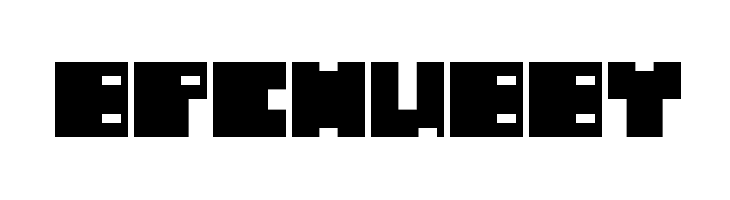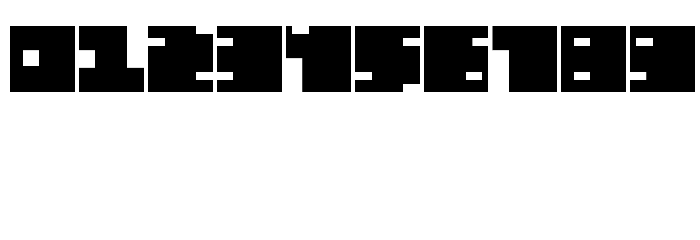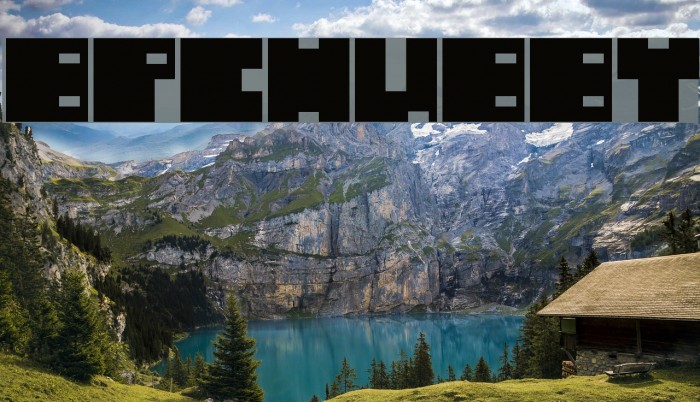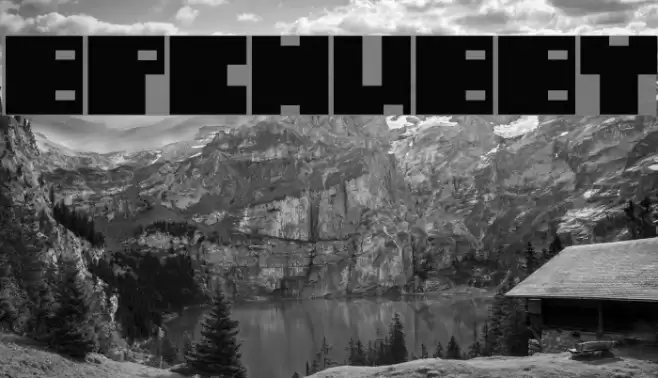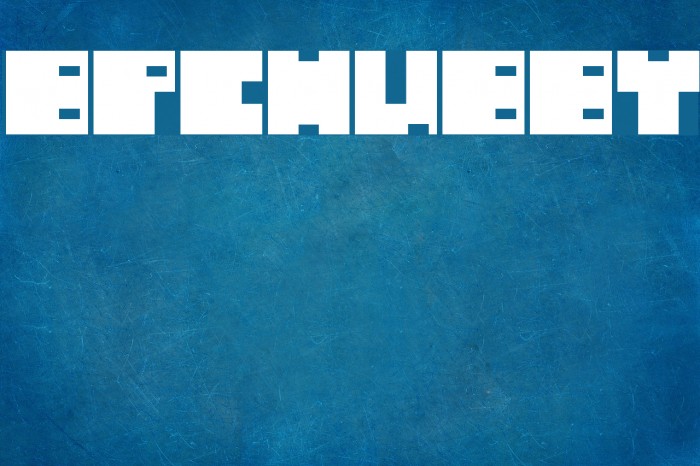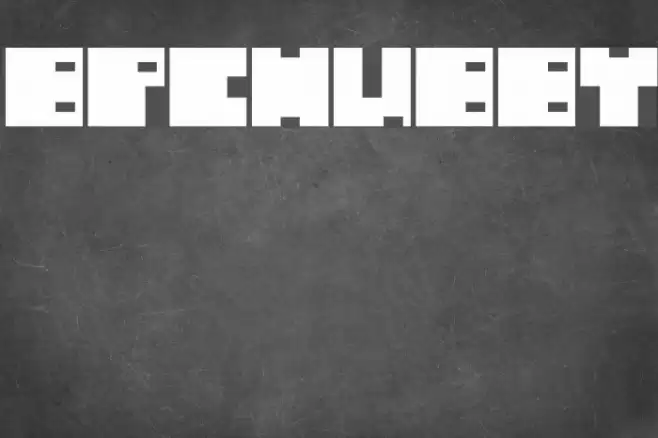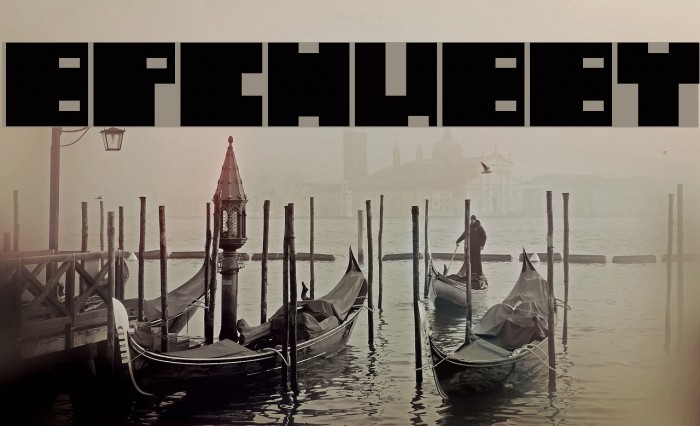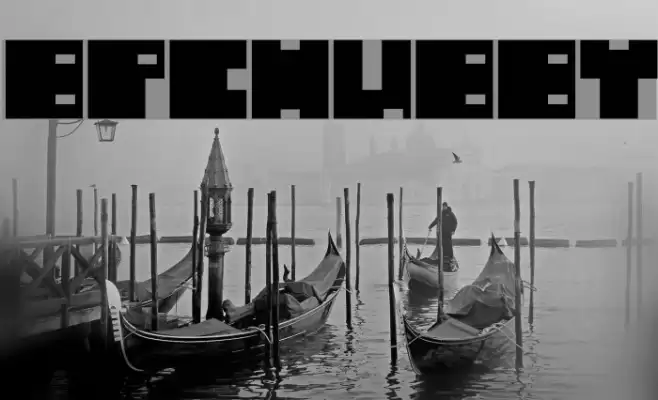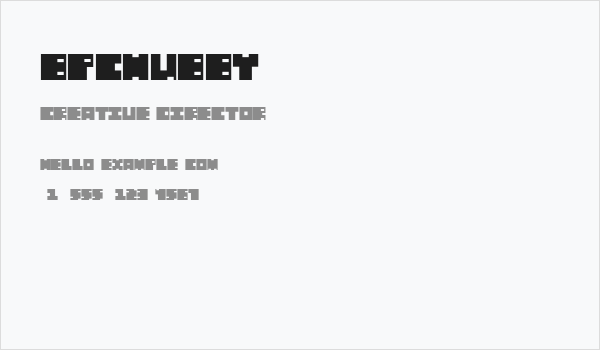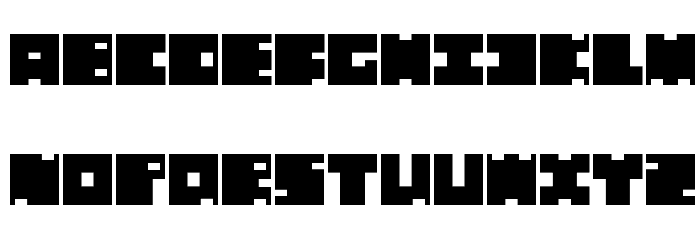
BPchubby Font
BPchubby Description
This font features a bold, blocky design with a distinctly pixelated aesthetic. Each character is composed of thick, uniform strokes that create a strong visual impact. The geometric shapes and sharp angles give it a digital, retro feel reminiscent of early video game graphics. The uppercase and lowercase letters maintain a consistent height, contributing to a cohesive and uniform appearance. Numbers and special characters follow the same design principles, ensuring a seamless integration across different text elements. The overall style is playful and eye-catching, making it suitable for projects that require a bold statement.
| Proposed Projects | Ideal for video game graphics, retro-themed posters, digital art, and any project requiring a bold, playful typeface. |